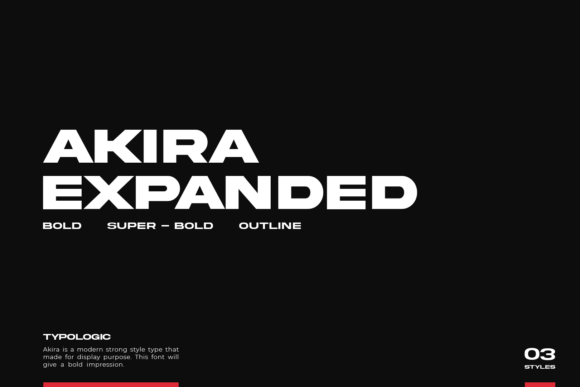
In today’s fast-paced design world, typography plays a crucial role in capturing attention instantly. Some fonts are subtle and elegant, while others are bold and unapologetic. The Akira Expanded Font falls into the latter category — a striking sans-serif designed for maximum impact.
With its wide letterforms, clean geometry, and modern style, Akira Expanded commands presence whether it’s used in headlines, branding, motion graphics, or digital interfaces. If you want your text to shout confidence and style, this is the font to use.
1. What is the Akira Expanded Font?
Akira Expanded is a strong, modern sans-serif typeface with three distinctive styles you can mix and match for creative results. Designed for headlines and impactful text blocks, its extended letter spacing and wide stance make it stand out in both print and digital media.
While its roots are in modernist design, Akira Expanded feels fresh and futuristic, making it ideal for industries like fashion, tech, sports, and media.
2. Key Features of Akira Expanded
Three Distinct Styles – Gives flexibility for different design moods.
Bold, Extended Letterforms – Adds power and presence to your text.
Modern & Minimalist Look – Works across a range of contemporary projects.
High Legibility – Even with its extended shapes, it remains easy to read.
Perfect for Headlines – Designed to grab attention instantly.
3. Where to Use Akira Expanded
The versatility of Akira Expanded makes it a favorite for high-impact design work.
Branding & Logos
Strong typography is essential for a memorable brand. Akira Expanded’s bold stance ensures your brand name stands out.
Web & App Design
Perfect for hero text, call-to-action sections, or stylish landing pages.
Print & Editorial
Magazine covers, feature headings, and special report layouts benefit from Akira’s attention-grabbing look.
Event Promotions
Concert posters, sports events, and product launches all shine with Akira Expanded in the spotlight.
Motion Graphics
In videos, the font’s clean shapes and wide spacing work perfectly for titles and captions.
4. Font Pairing Suggestions for Akira Expanded
When using Akira Expanded, pairing it with a more neutral font for body text balances the design.
Akira Expanded + Open Sans – Clean and professional.
Akira Expanded + Roboto – Modern tech pairing.
Akira Expanded + Montserrat – Stylish and versatile.
Akira Expanded + Lato – Minimalist and easy to read.
7. Tips for Using Akira Expanded Effectively
Use for Short Text & Headlines – Its bold style is perfect for titles, not long paragraphs.
Keep Spacing Consistent – Maintain balance to avoid overpowering the design.
Pair with Simple Backgrounds – Let the font take center stage.
Experiment with All Caps – It enhances the strong, modern feel.
8. Industries That Benefit from Akira Expanded
Fashion & Lifestyle – Trendy and high-end branding.
Technology & Startups – Futuristic and sleek for innovation-driven brands.
Sports & Fitness – Strong and energetic visual identity.
Entertainment & Media – Eye-catching for posters, titles, and campaigns.
9. Alternatives to Akira Expanded
If you like Akira Expanded but want other wide sans-serifs, try:
Bebas Neue Expanded – Tall and bold with a similar aesthetic.
Oswald Expanded – A geometric sans-serif with a wide structure.
Anton – Heavyweight and commanding.
League Spartan – Bold, modern, and highly legible.
Q2: What kind of font is Akira Expanded?
It’s a bold, wide sans-serif designed for maximum visual impact.
Q3: Does Akira Expanded work for body text?
It’s best for headlines and short text; body text should use a simpler font.
Final Thoughts
The Akira Expanded Font is a powerful tool for designers looking to make a statement. Its bold geometry, wide letterforms, and modern style give it an unmistakable presence in any project. Whether you’re designing for print, web, or motion graphics, Akira Expanded delivers impact, style, and versatility.